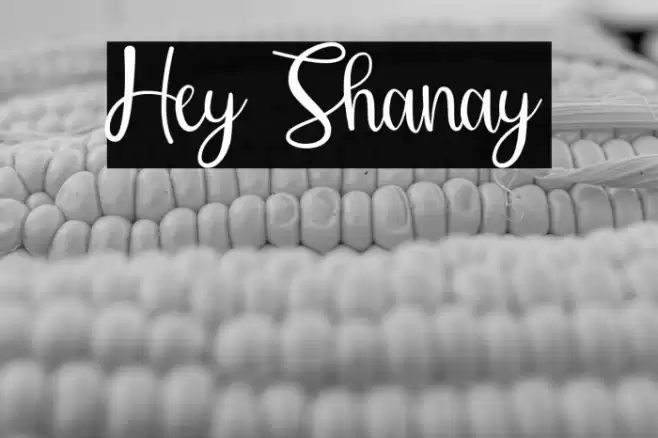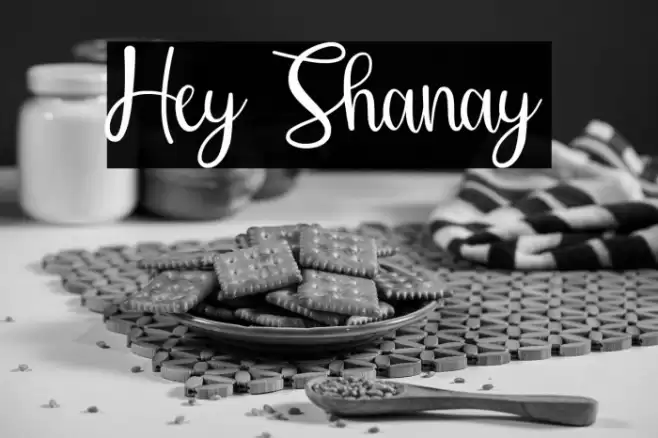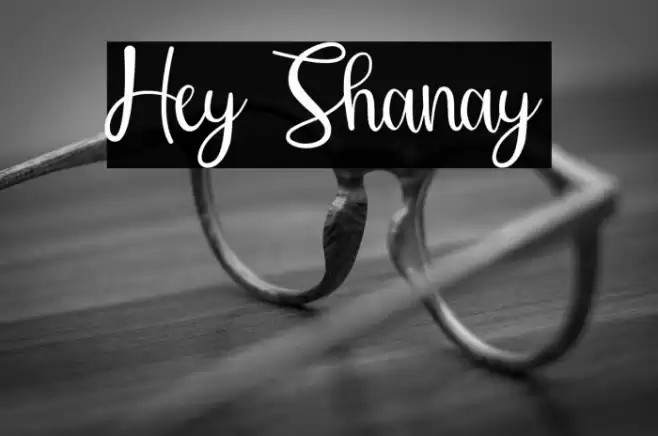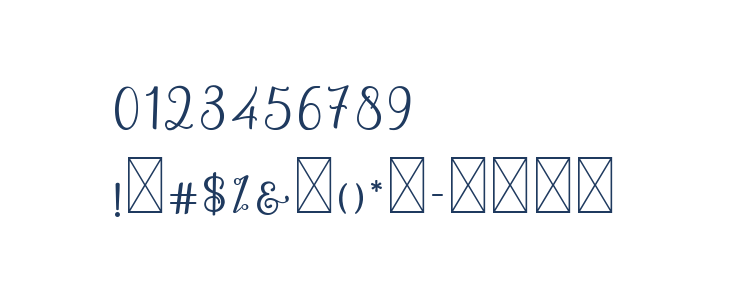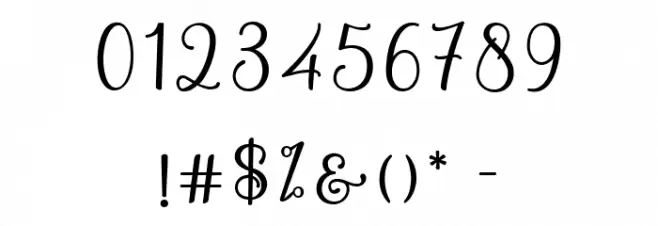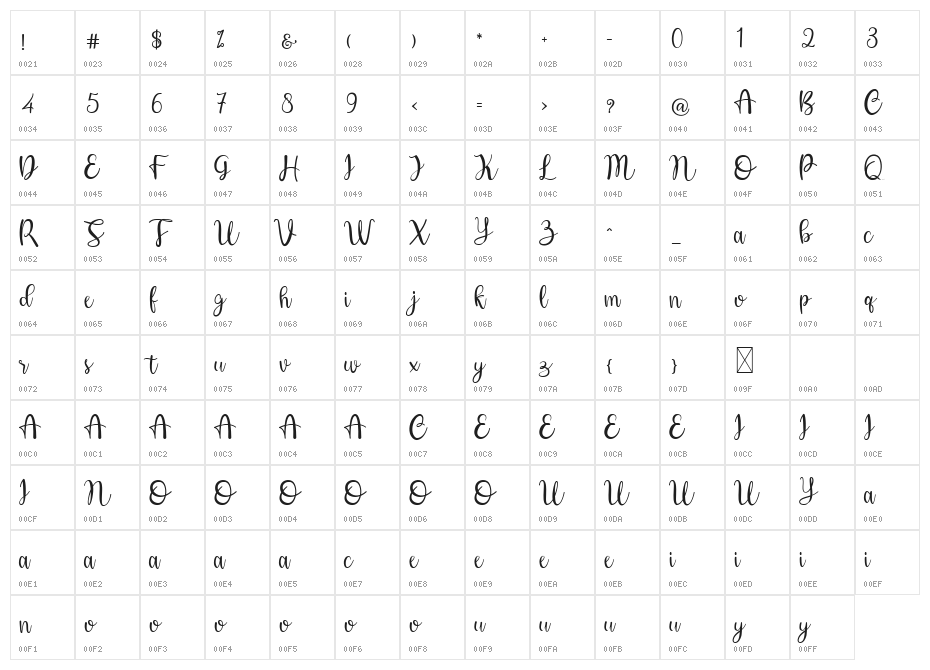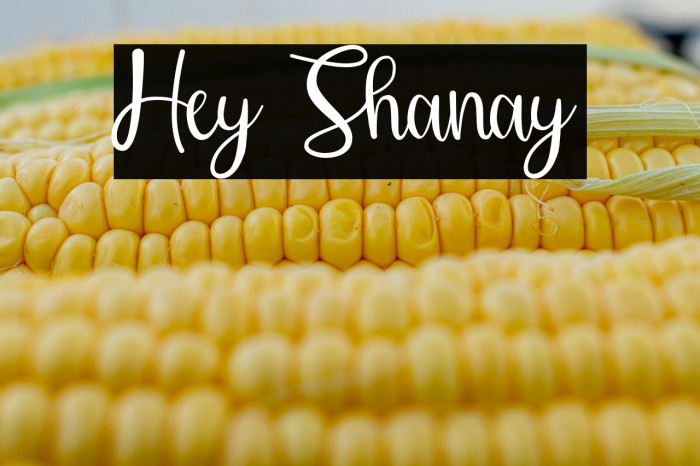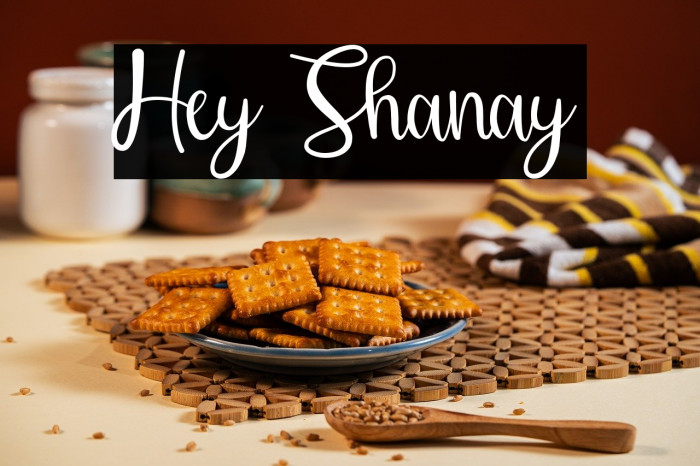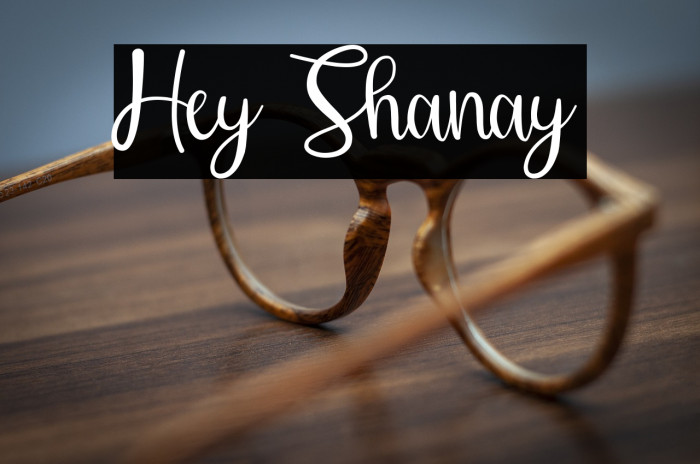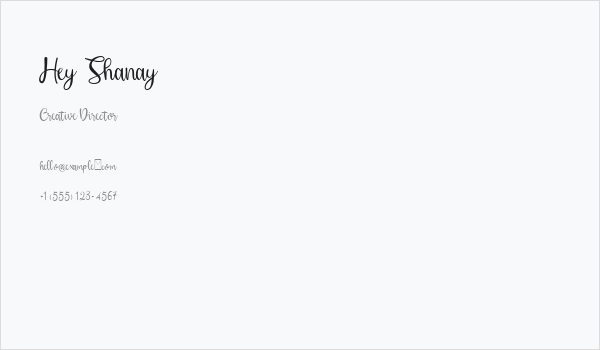
Hey Shanay Font
Hey Shanay Description
This font features a lively and flowing script style, characterized by its elegant and smooth curves. The letters are interconnected, giving it a cohesive and continuous appearance, reminiscent of traditional calligraphy. The uppercase letters are bold and prominent, while the lowercase letters maintain a consistent flow, enhancing readability. The numerals and special characters are designed to match the overall aesthetic, ensuring a harmonious look across all text. This font exudes a sense of sophistication and creativity, making it suitable for a variety of design projects.
A lively and flowing script font with elegant, interconnected letters from Regular fonts.
- Proposed Projects: Ideal for wedding invitations, greeting cards, branding, and logo design.
- Use Case: Logos, Invitations, Decorative text